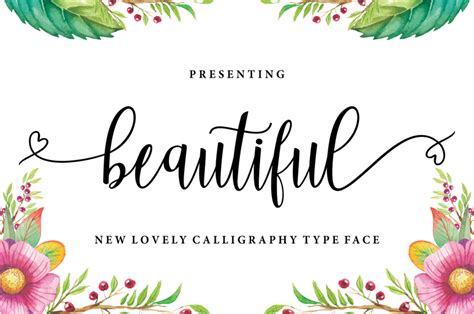
Beautiful Script Fonts Free Download Dafont
Readers, have you ever been captivated by the elegance and charm of script fonts? They possess a unique ability to add a touch of sophistication and personality to any design project. But finding high-quality, free script fonts can be a daunting task. Thankfully, Dafont, a renowned online font library, offers a treasure trove of beautiful script fonts available for free download. In this comprehensive guide, we'll delve into the world of beautiful script fonts, explore the benefits of using them, and showcase some of the best options available on Dafont.
We've spent countless hours sifting through Dafont's vast collection, analyzing the latest trends, and identifying the most captivating script fonts for our readers. Whether you're a professional designer, a passionate artist, or simply someone looking to add a touch of elegance to your personal projects, this article will equip you with the knowledge and resources you need to find the perfect script font for your needs.
What are Script Fonts?
Script fonts, also known as cursive fonts, are designed to mimic handwritten lettering. They often feature flowing strokes, elegant curves, and a sense of fluidity that evokes a handwritten aesthetic. Script fonts come in a wide variety of styles, from classic and traditional to modern and playful. They're a versatile choice for various design applications, including:
- Logo design: Script fonts can add a touch of elegance and sophistication to brand logos, especially for businesses in industries like fashion, beauty, and hospitality.
- Wedding invitations: The romantic and elegant nature of script fonts makes them a perfect choice for wedding invitations and other stationery.
- Website design: Script fonts can add a touch of personality and style to website headers, titles, and call-to-action buttons.
- Social media graphics: Script fonts are often used to create eye-catching social media graphics for brands and individuals.
- Book covers: Script fonts can add a touch of intrigue and sophistication to book covers, especially for genres like romance, historical fiction, and fantasy.
The Advantages of Using Script Fonts
Script fonts offer several advantages over other font styles, making them a popular choice for designers and creatives. These benefits include:
- Elegance and sophistication: Script fonts have a natural elegance that can instantly elevate the look and feel of any design project.
- Personality and character: Each script font has a unique personality and character, allowing designers to express their style and evoke specific emotions.
- Versatility: Script fonts can be used in a wide range of design applications, from branding and logos to invitations and website graphics.
- Readability: While some script fonts can be challenging to read, many are designed with readability in mind, especially in larger sizes.
Finding Beautiful Script Fonts on Dafont
Dafont is a vast online font library that offers a wide selection of free fonts, including a treasure trove of beautiful script fonts. Here's a step-by-step guide to finding the perfect script font on Dafont:
- Preview the fonts: Before downloading a font, preview it by clicking on its thumbnail. This allows you to see how the font looks in different sizes and styles.
- Download the font family: If you find a font you like, click the "Download" button to download the font family, which includes all the different weights and styles of the font.
Essential Tips for Choosing the Right Script Font
With so many beautiful script fonts available, it can be overwhelming to choose the right one for your project. Here are some tips to guide your selection:
- Consider the project's purpose: What is the intended use of the font? Is it for a logo, invitation, website, or other design project? The purpose of the project will influence your font choice.
- Define your desired aesthetic: What kind of look and feel are you trying to achieve? Are you looking for a classic, modern, playful, or elegant font? The desired aesthetic will guide your selection.
- Readability is key: Ensure the font you choose is readable, especially in smaller sizes. Some script fonts can be challenging to read, so it's important to consider readability.
- Experiment with different styles: Don't be afraid to experiment with different script fonts to find the perfect one for your project. Dafont allows you to preview fonts before downloading them, making it easy to compare different options.
What are some tips for using script fonts effectively?
Use script fonts sparingly, consider readability, pair them with other fonts for visual interest, and choose colors that complement the font.